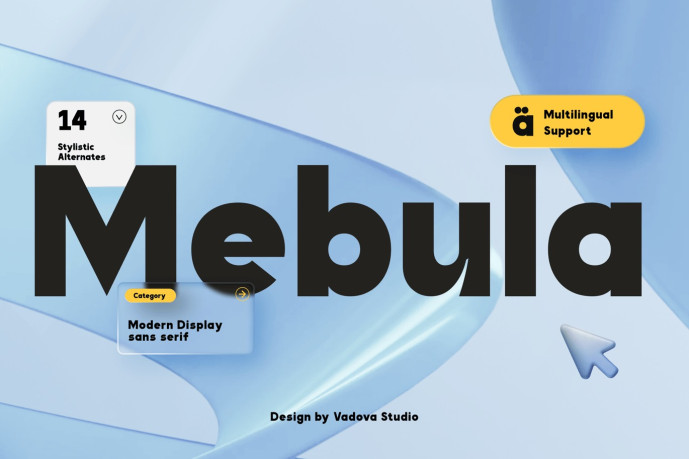
Mebula Font
Mebula Font is a bold and modern sans-serif display typeface designed with clarity, impact, and versatility in mind. It features strong geometric shapes, high legibility, and a commanding presence, making it perfect for contemporary branding, web headers, mobile interfaces, and digital advertising. With 14 stylistic variants, full multilingual support, and a complete character set including uppercase and lowercase letters, numbers, punctuation marks, and symbols, Mebula is ready to meet a variety of design needs. Its clean and powerful aesthetic is ideal for tech startups, creative agencies, modern product packaging, and bold digital design projects.